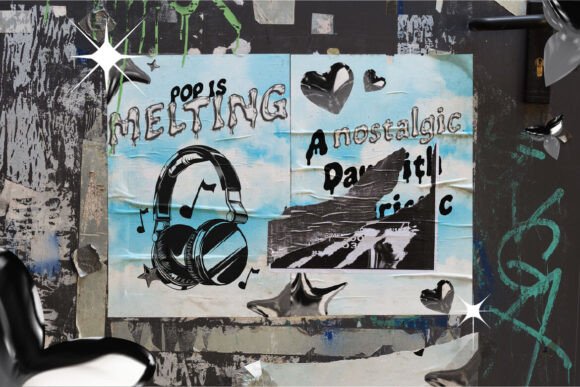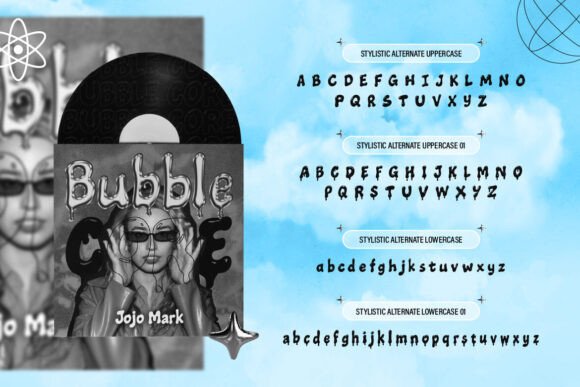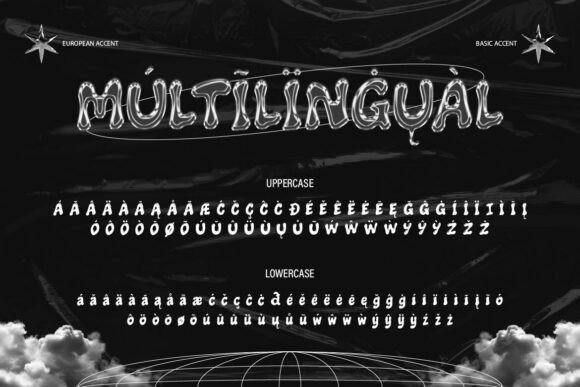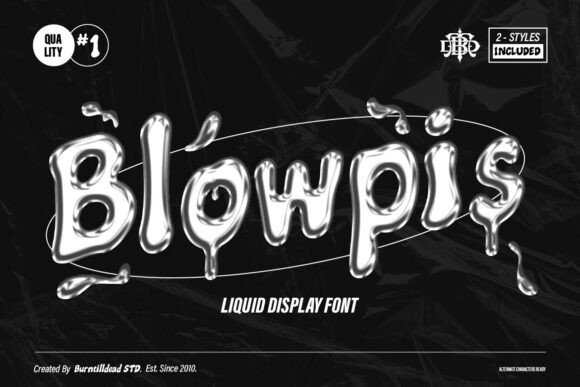
Discover the Edgy Charm of Blowpis Font: A Playful Display Font
Have you ever been in the middle of a design project, and suddenly, you’re stuck on finding the perfect font? I recall a recent experience where I was working on a music poster for a friend’s band, and I just couldn’t find a font that captured the right vibe. That’s when I stumbled upon Blowpis Font, a playful and edgy display font that completely transformed my design. Inspired by dripping textures and bubbly shapes, Blowpis is more than just a font – it’s a statement piece.
What Makes Blowpis Font So Special?
Blowpis Font comes in two unique styles: Regular and Solid. This versatility makes it perfect for creating punchy headlines and loud visual statements. What I love about Blowpis is its ability to bring a fresh vibe to your design, making it ideal for those who love to stand out. Here are some of the features that make Blowpis stand out:
- ✨ Playful and edgy design inspired by dripping textures and bubbly shapes
- ✅ Comes in 2 unique styles: Regular and Solid
- ✅ Includes cool alternates that turn your letters into bubble-like blobs, liquid drips, or even creepy horror vibes
- ✅ Perfect for music & event posters, streetwear design, album covers, Y2K vibes, or even experimental layouts
As with any font, there are things I love and a few quirks to be aware of:
- ✨ The unique alternates that allow for creative freedom and customization
- ✅ The font’s versatility in various design applications, from posters to digital media
- ✅ The edgy, playful vibe that adds a fresh perspective to designs
- ⚠️ Some of the alternates can be a bit tricky to navigate, especially for beginners
- 🤔 The font might not be the best fit for very formal or traditional designs
The creator of Blowpis Font drew inspiration from the textures of dripping paint and the playful shapes of bubbles. The goal was to craft a font that breaks away from the ordinary and offers a fresh, edgy vibe. Whether it’s for a music poster, an album cover, or a streetwear design, Blowpis aims to make a statement.
| Font Name | Blowpis Font |
| Author | Burntilldead |
| What type of designs is Blowpis Font best suited for? | Blowpis Font is perfect for music & event posters, streetwear design, album covers, Y2K vibes, or even experimental layouts. |
Blowpis Font is more than just a typeface – it’s a tool for creativity and self-expression. With its playful, edgy design and versatile alternates, it’s an excellent addition to any designer’s toolkit. So, next time you’re looking to make a statement with your design, consider giving Blowpis a try!